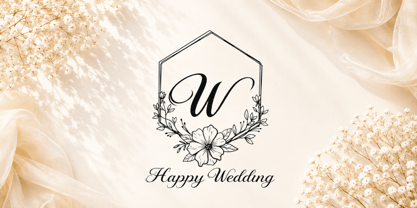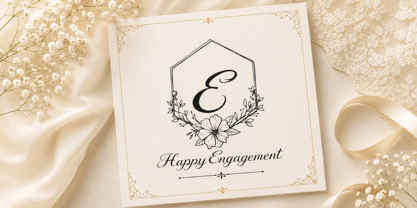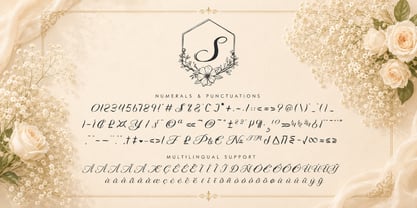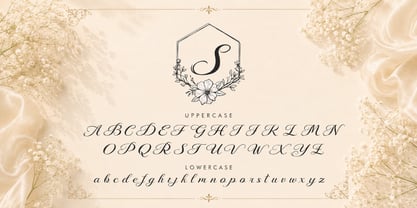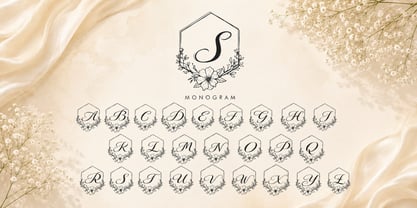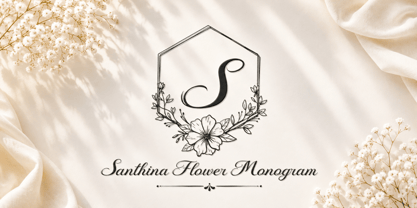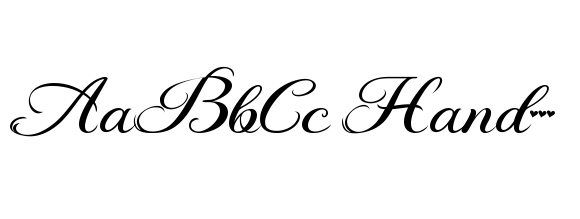
Santhina Flower Monogram
by Yoga Letter
The Santhina Flower Monogram Font Family was designed by Isroni Yoga Prasetya and published by Yoga Letter. Santhina Flower Monogram contains 1 styles. More about this family
Santhina Flower Monogram is an exquisite floral monogram font that infuses timeless beauty into weddings, invitations, branding, logos, and stationery. This font showcases graceful script letters elegantly framed by delicate floral designs, adding sophistication, romance, and luxury to any project. It includes a comprehensive set of monograms, uppercase and lowercase letters, numbers, punctuation, and robust multilingual support, making it a versatile choice for various design applications.